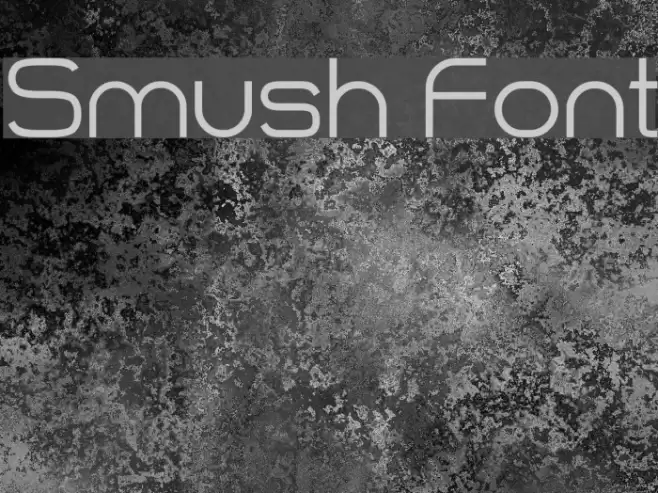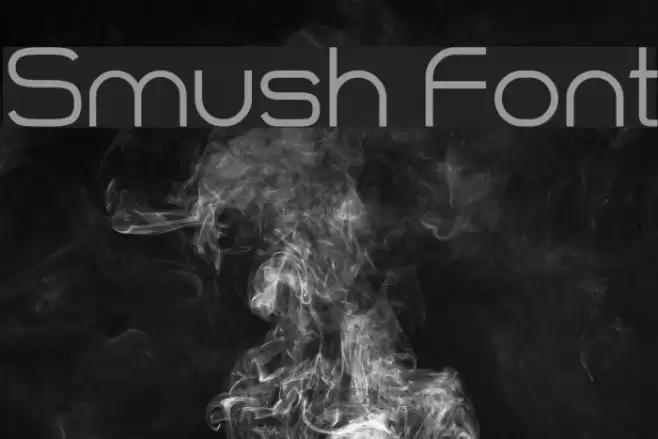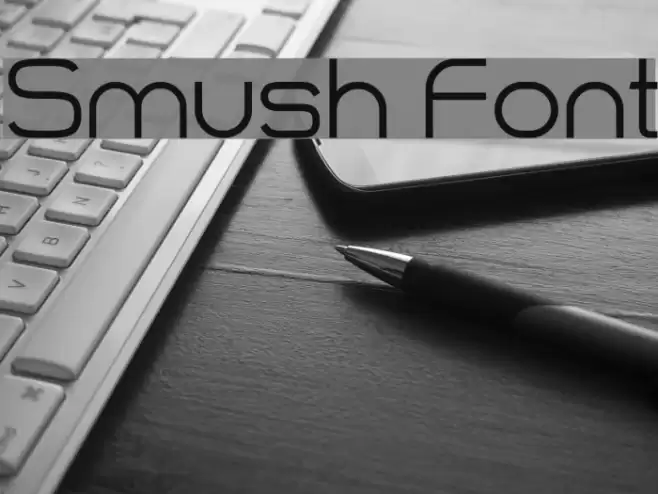
Smush Font
Smush Description
This font features a modern, geometric design with clean, rounded edges and a consistent stroke width. The characters are evenly spaced, creating a harmonious and balanced appearance. The uppercase and lowercase letters maintain a uniform style, with a slight variation in the height of the lowercase letters to ensure readability. The numerals and special characters are designed to complement the alphabet, maintaining the same geometric and minimalist aesthetic. This font is versatile, suitable for both digital and print media, and can be used in various design contexts.
A modern, geometric font with rounded edges and consistent stroke width from Uncategorized fonts.